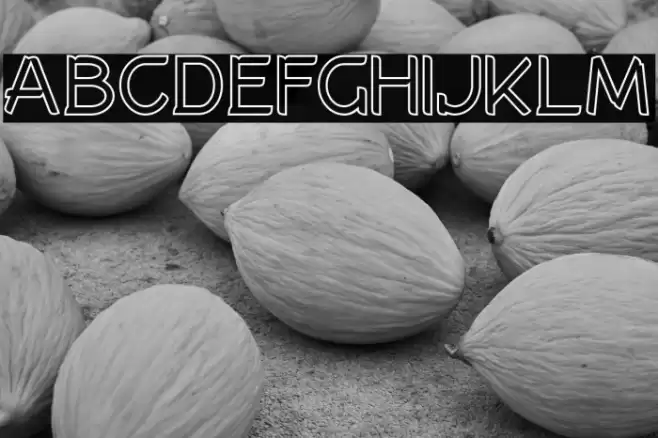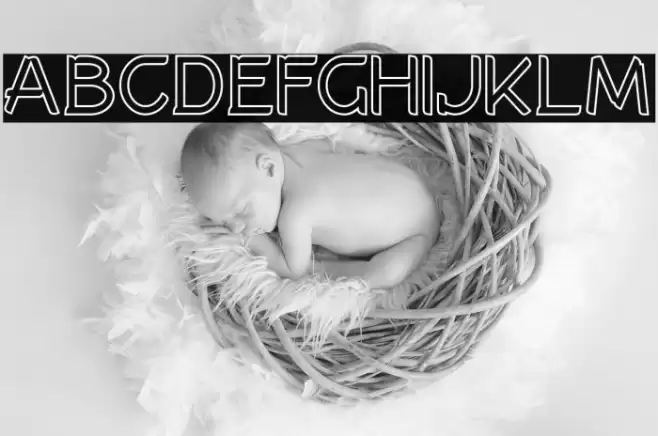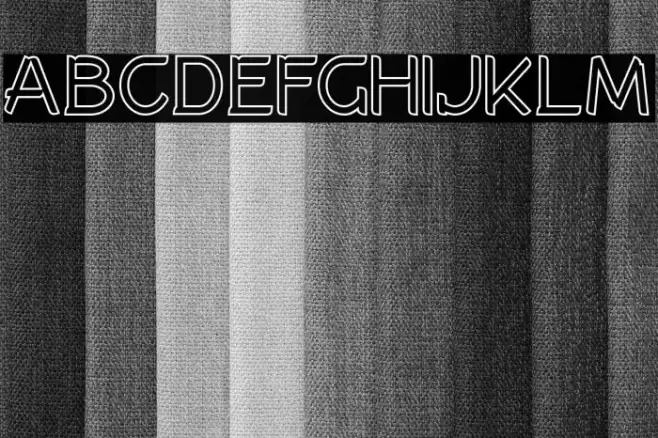
AllenatoreRegularOutline Font
AllenatoreRegularOutline Description
This font features a modern and clean outline style, characterized by its geometric and structured letterforms. The uppercase and lowercase letters maintain a consistent width, creating a harmonious and balanced appearance. The numerals and special characters follow the same design principles, ensuring uniformity across all glyphs. The open and airy design of the font makes it suitable for various creative applications, offering a contemporary and stylish look.
A modern, geometric outline font with consistent width and structured letterforms from Uncategorized fonts.
- Font: AllenatoreRegularOutline
- Proposed Projects: Ideal for branding, posters, headlines, and digital media where a modern and stylish appearance is desired.
AllenatoreRegularOutline UPPERCASE
AllenatoreRegularOutline LOWERCASE
AllenatoreRegularOutline OTHER CHARS